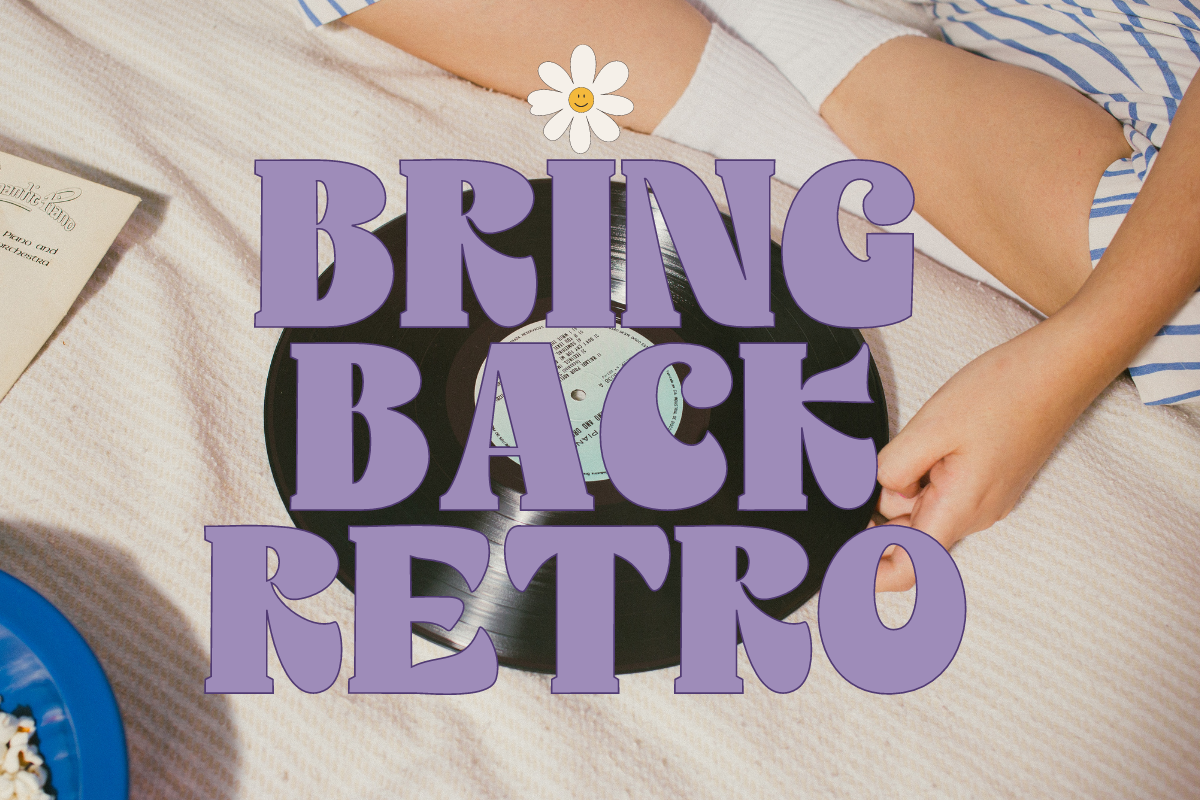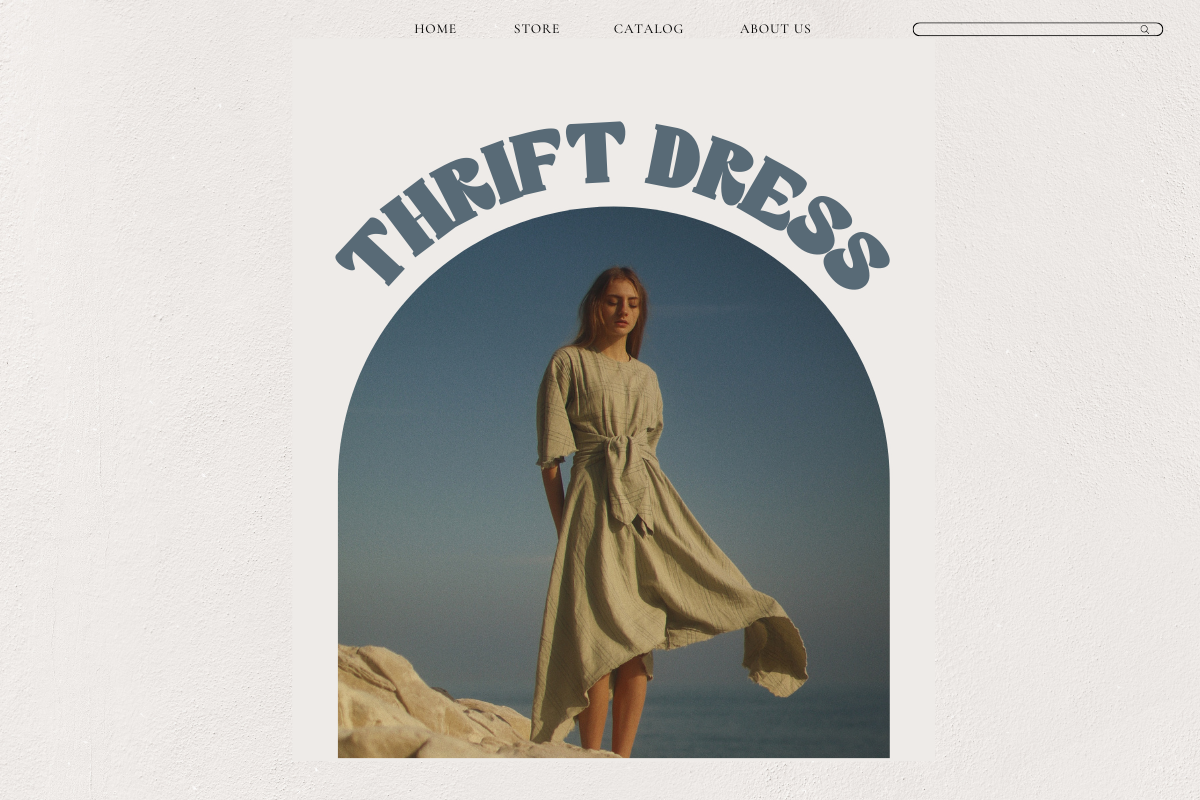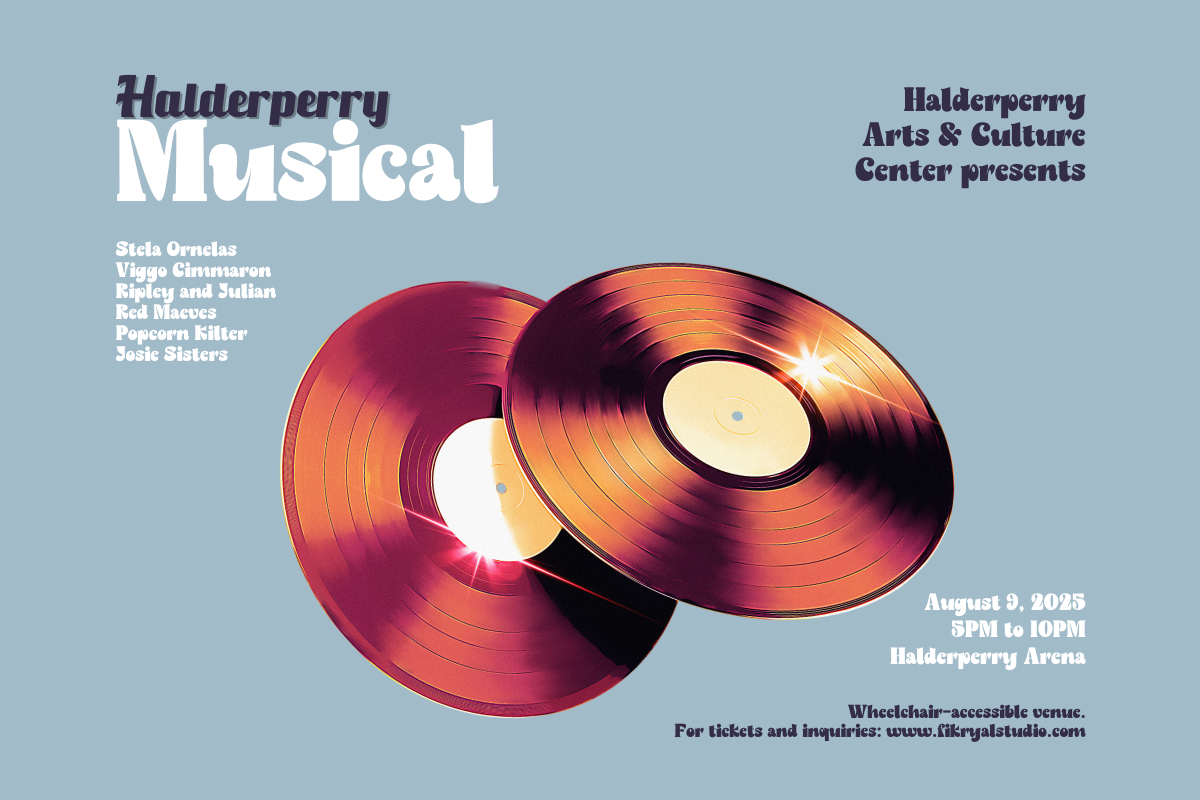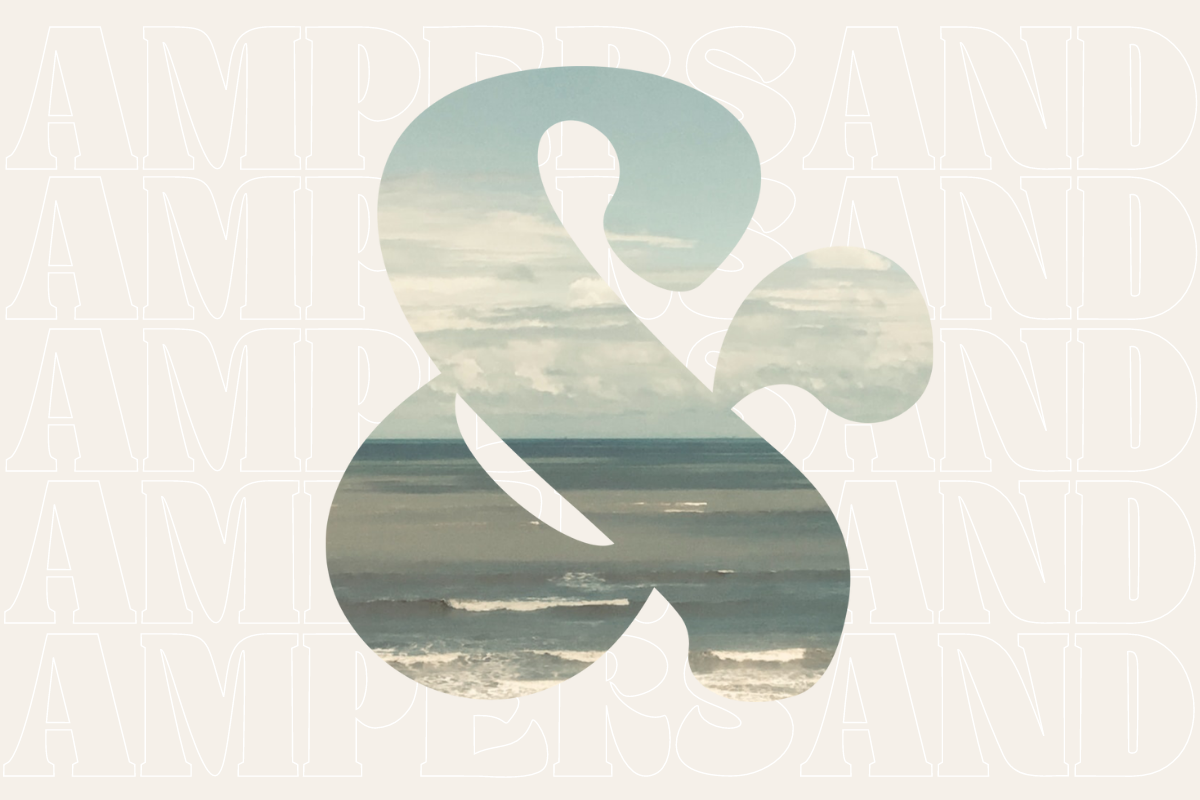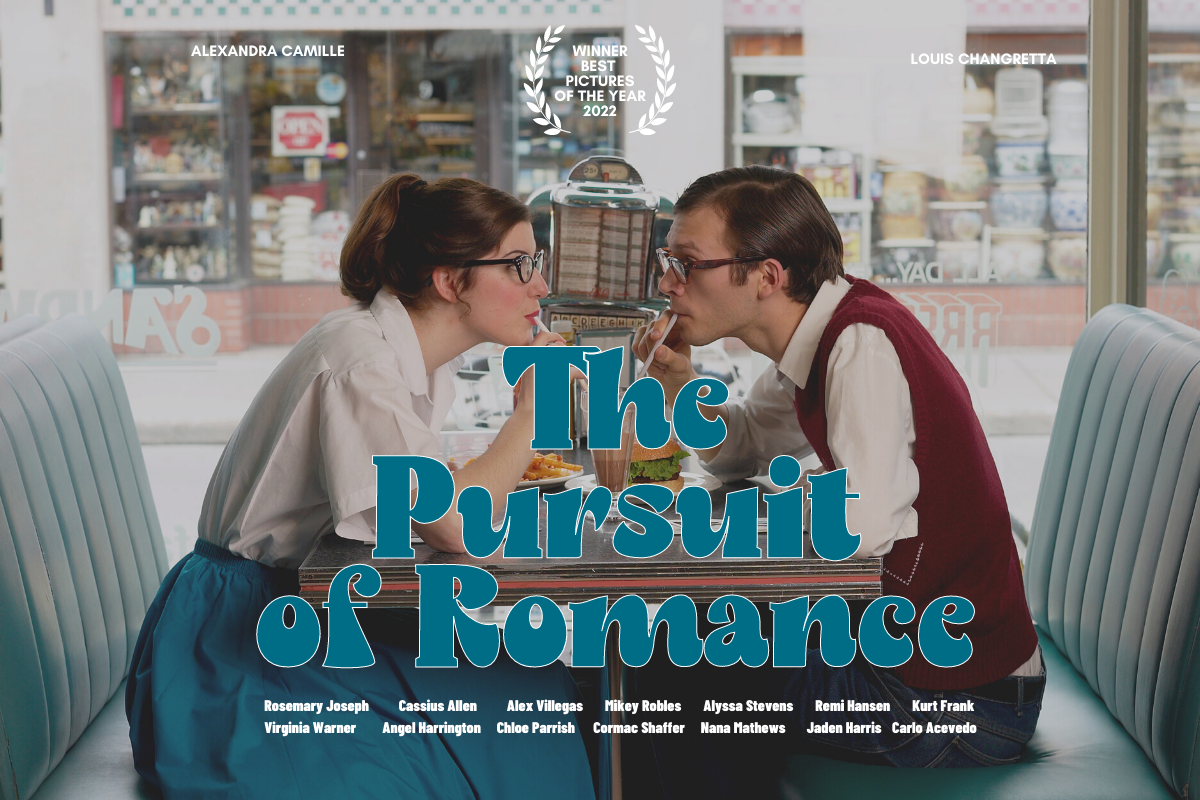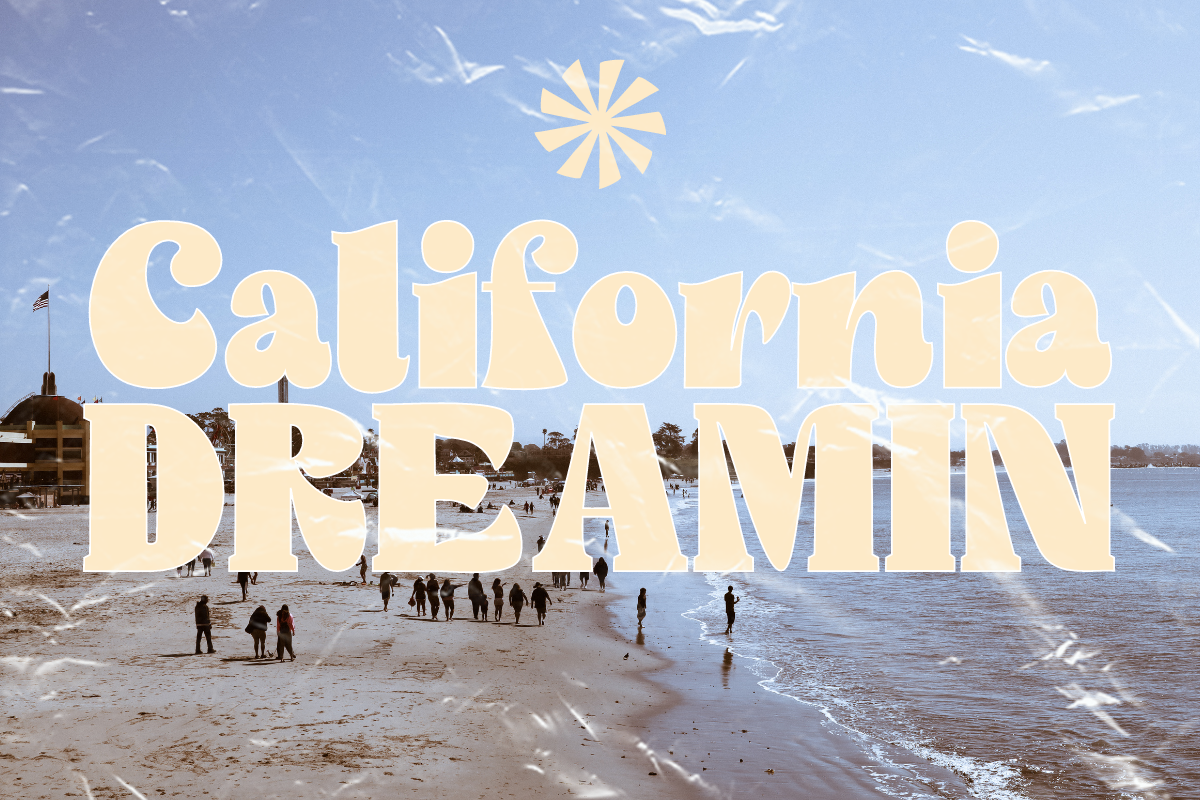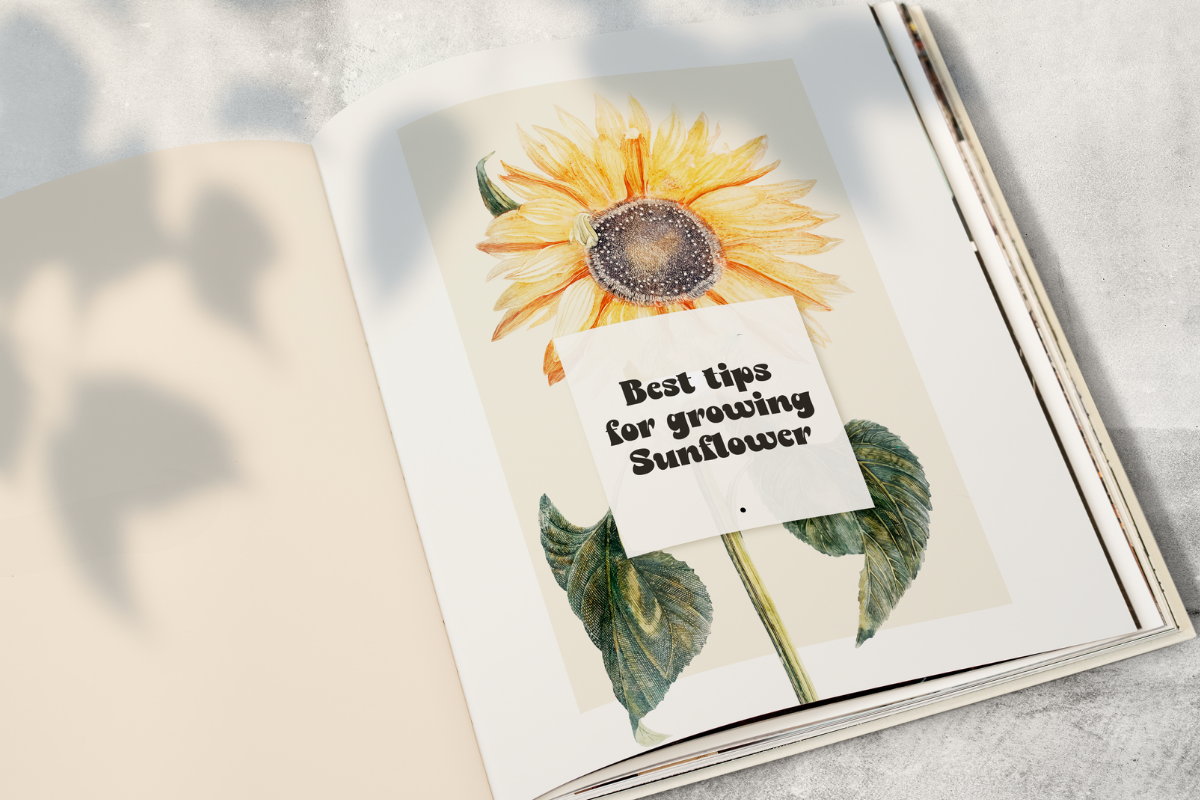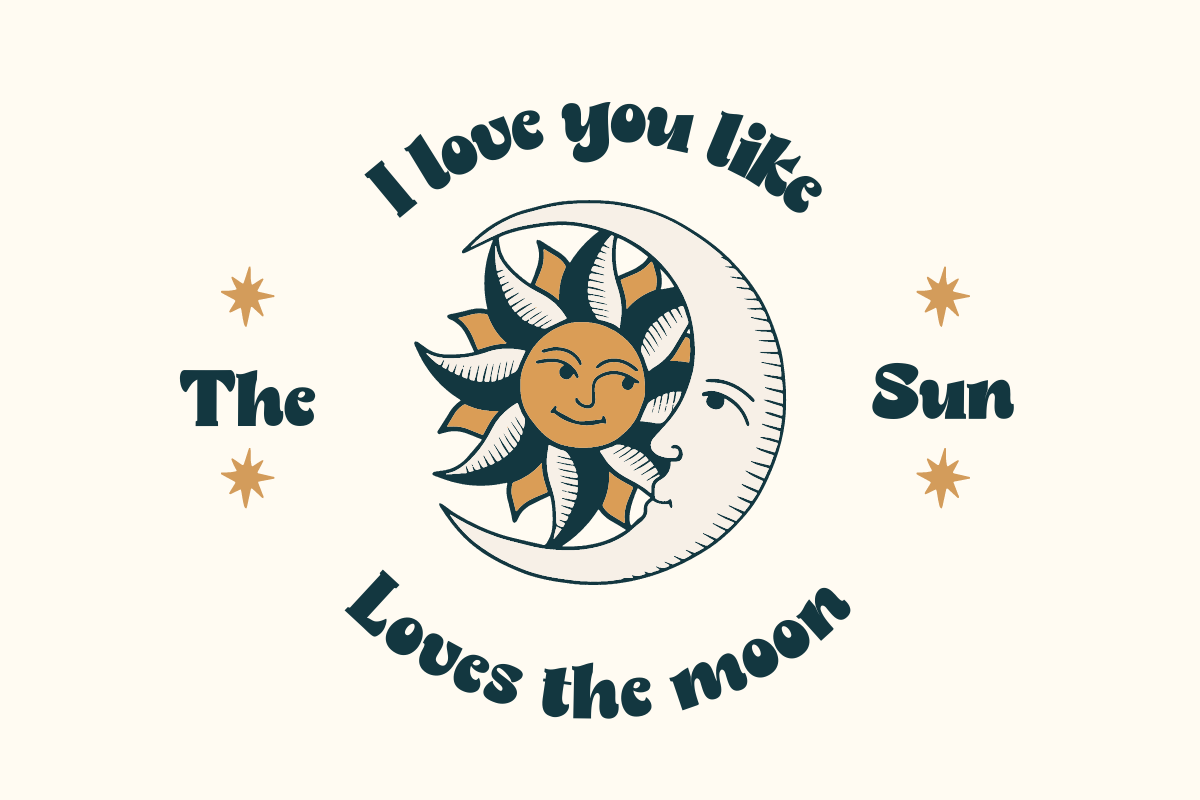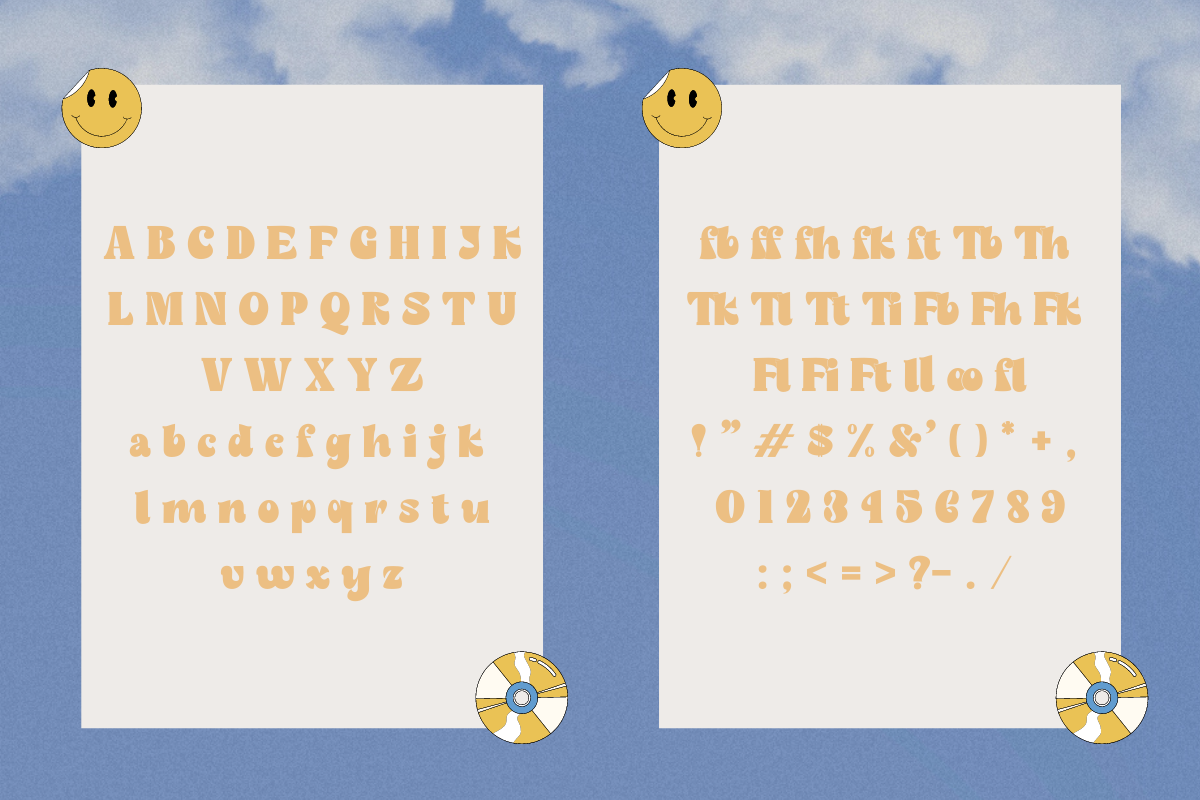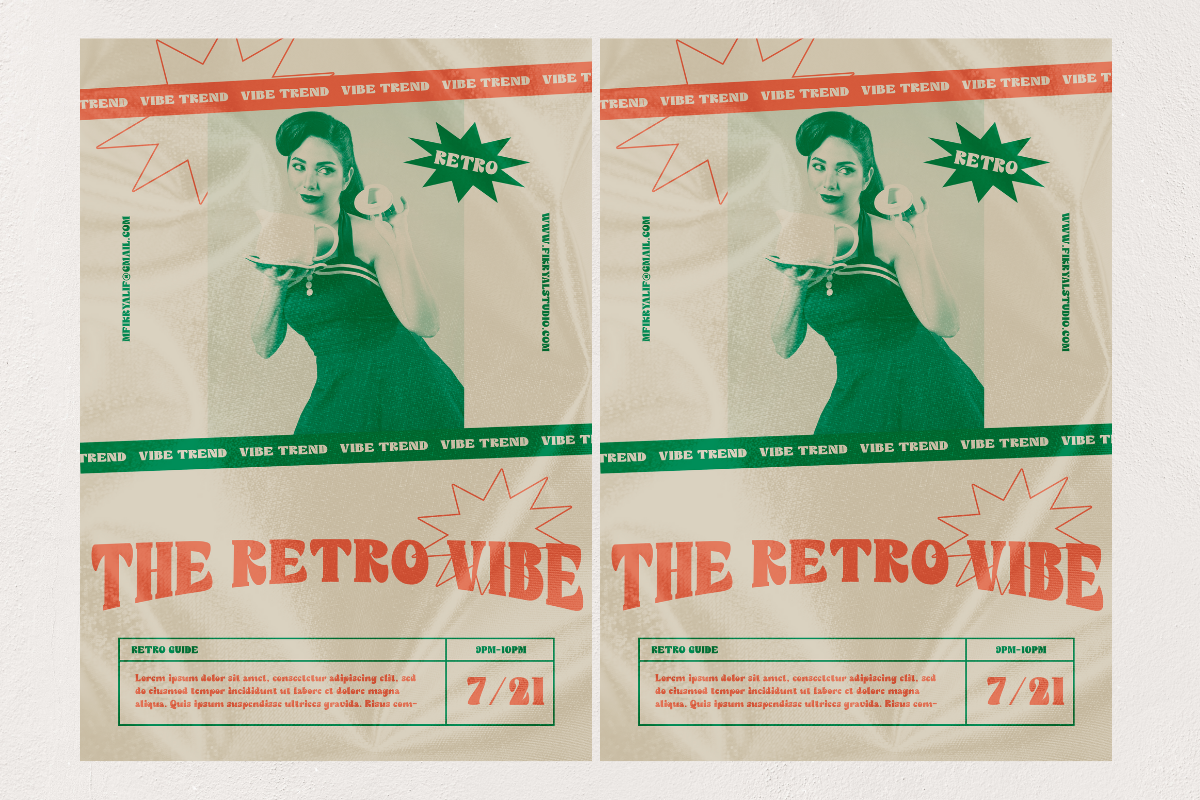
Raosand – Retro Display Serif
Raosand – Retro Display Serif Typeface, made with creativity and with great care to be your design solution.
This font is very suitable to be applied in various aspects of design, and your branding. It’s perfect for logos, branding, title, social media posts, advertisements, product packaging, product designs, label, photography, watermark, special event, magazine, web designs, etc.